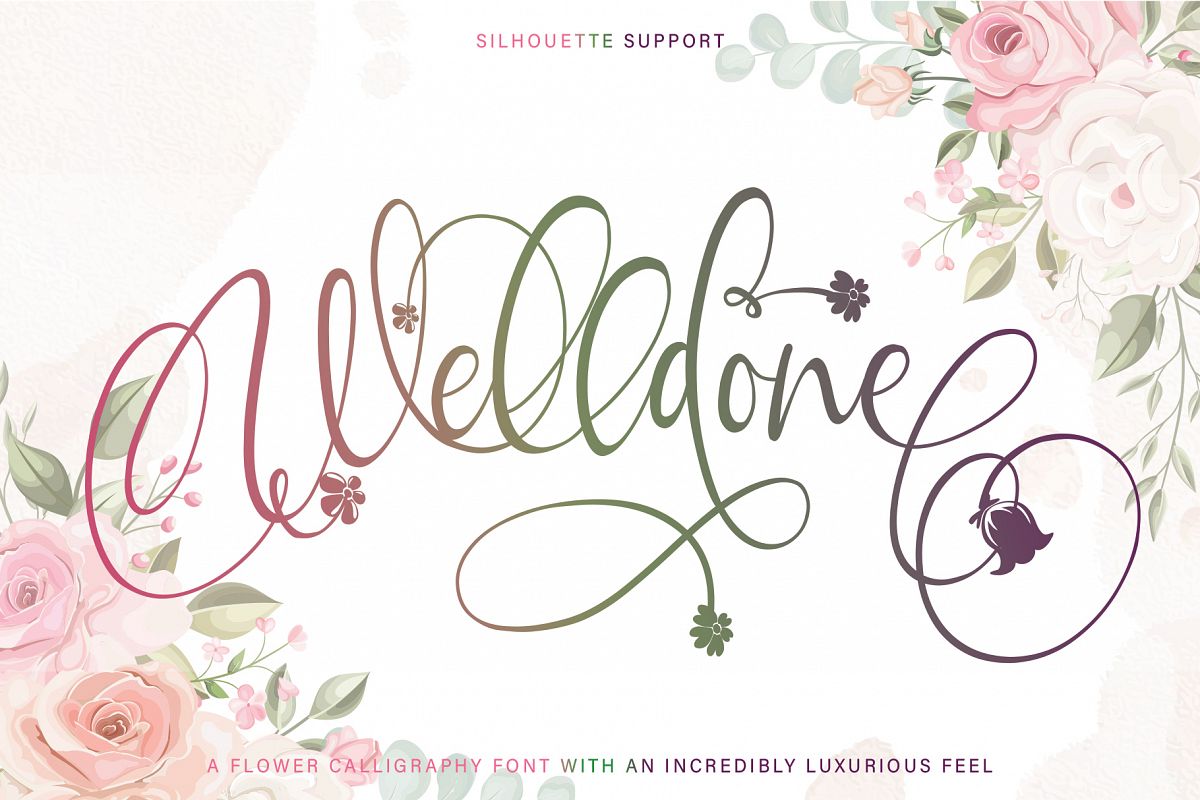
Welldone is a flower calligraphy font with
an incredibly luxurious feel. It will add a romantic touch to any crafting
project! Get inspired by its unique look!
• Many
features:
(A-Z, a-z) Alternate, (A-Z, a-z)  Swash, (a-z) titling, Ligature, (A-Z,
a-z) ss01, (A-Z, a-z) ss02, (a-z) ss03, (a-z)ss04 & (a-z) ss05
features including alternate glyphs and ligatures.